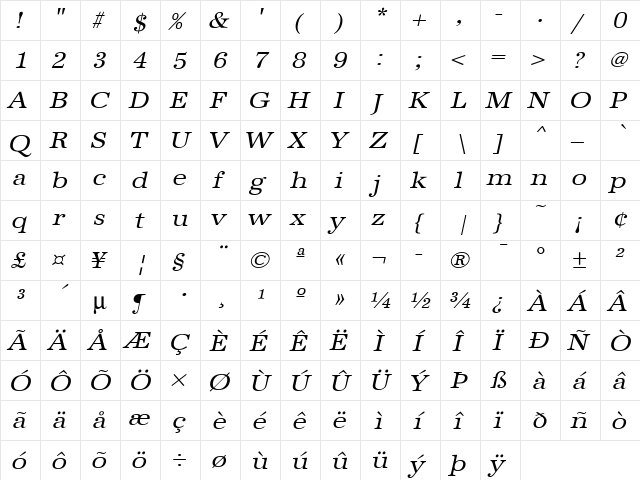
URW Antiqua T Regular
Design Context for URW Antiqua T Typeface
URW Antiqua T takes a measured approach to typography — its balanced proportions and neutral character make it a reliable workhorse for both digital and print work.